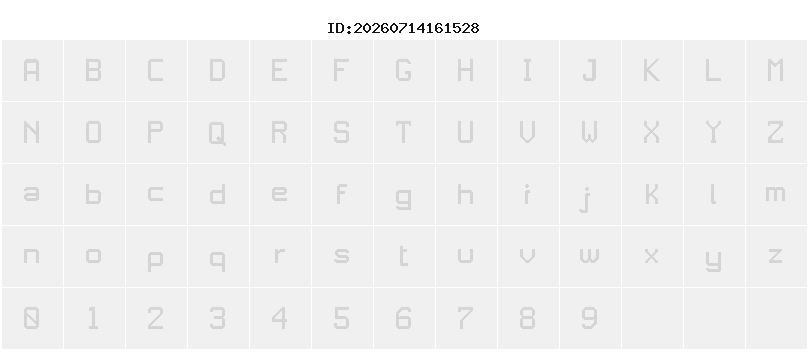
JD DigiSquare Preview
• Font Name: JD DigiSquare
• Font ID: FontStruct JD DigiSquare
• Full Font Name: JD DigiSquare Regular
• PostScript Name: JD-DigiSquare
• Designer: Jecko Development
• Description: ‚ÄúJD DigiSquare‚Äù was built with FontStruct
About JD DigiSquare.ttf
JD DigiSquare.ttf is a modern, elegant sans-serif font designed for ultimate readability and visual harmony. Perfect for branding, headlines, web design, and print materials.